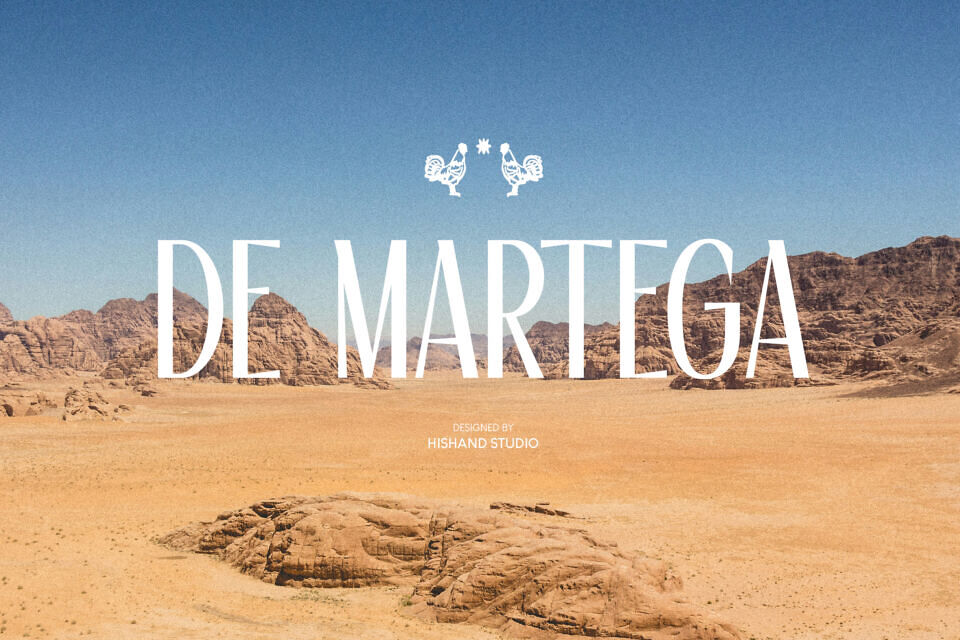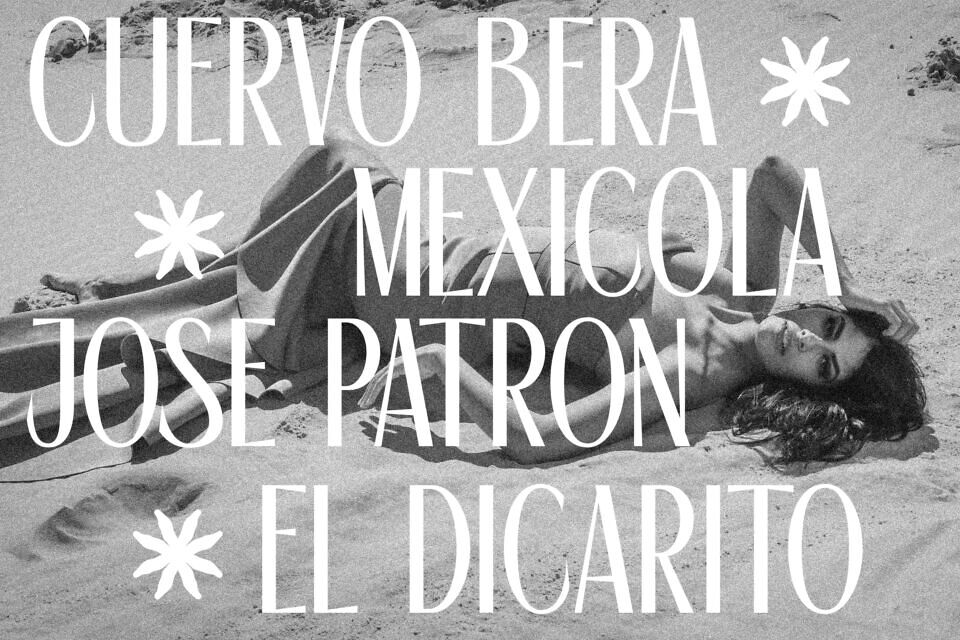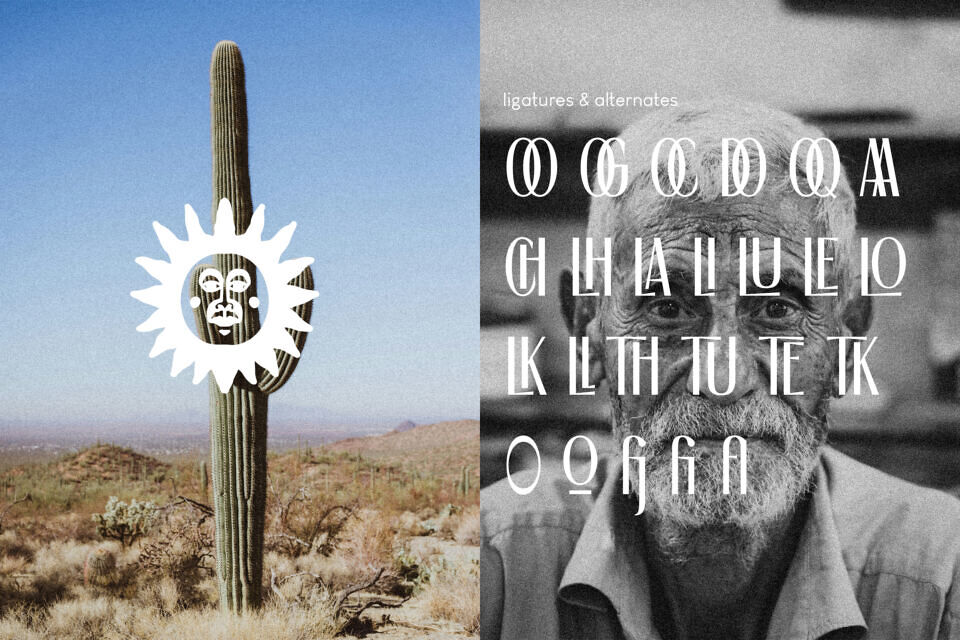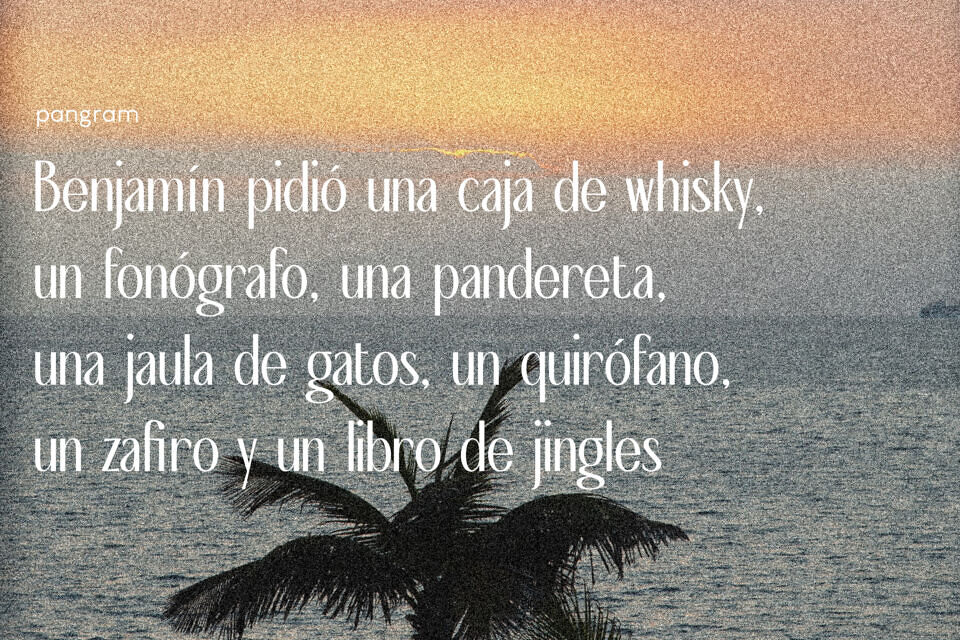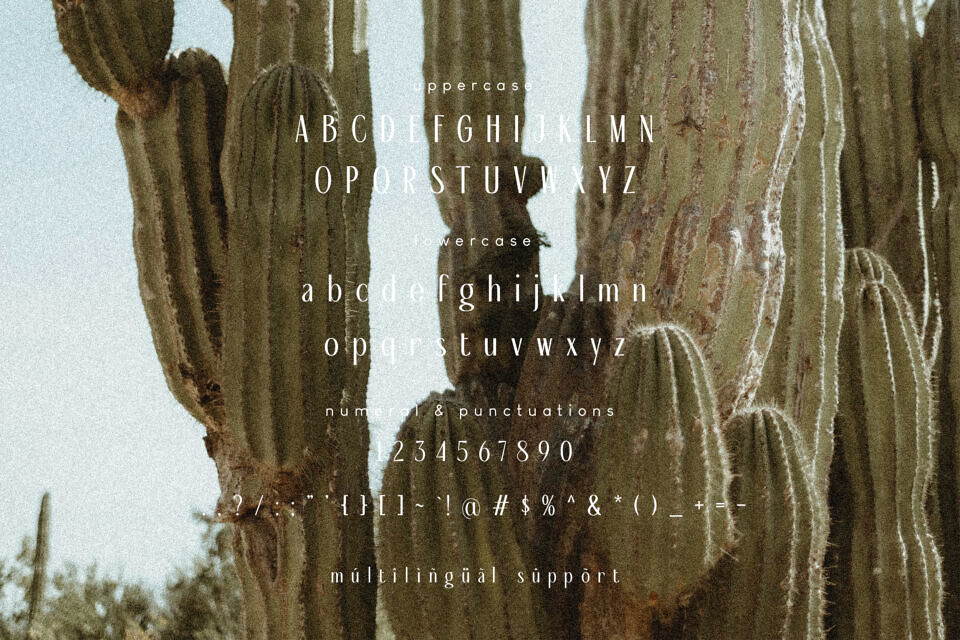
De Martega Font
De Martega is a refined serif typeface designed to bring sophistication and style to any project. With tall, elegant letterforms and a confident presence, it balances bold vertical strokes with delicate curves, creating a look that is both graceful and commanding. Slightly condensed in shape, the font carries a modern touch while still holding onto the timeless qualities of a classic serif.
What makes De Martega stand out is its subtle organic details. While many serifs lean into rigid geometry, this typeface keeps a handcrafted feel that adds warmth and character. The result is a font that looks luxurious without being cold, refined without being stiff. It’s polished and stylish, yet approachable a versatile choice for designers who want elegance with personality.